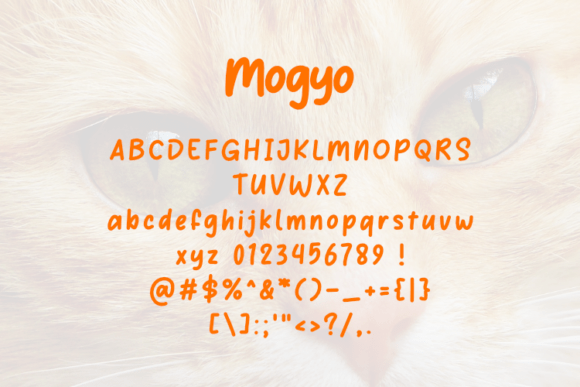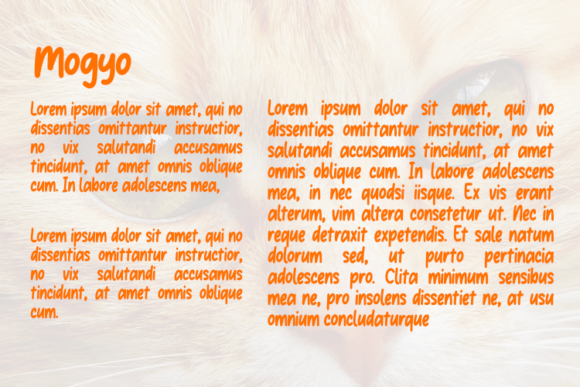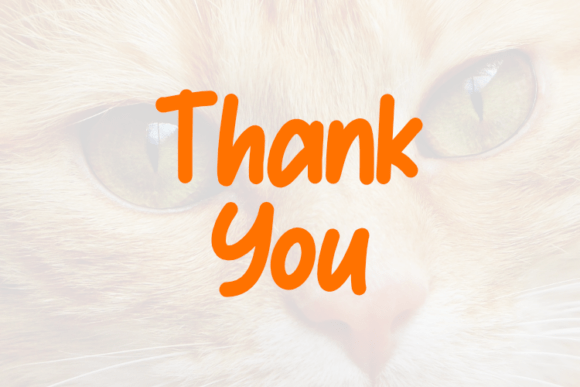
Introduction to Mogyo Font
Presenting Mogyo – a unique font meticulously crafted to bring a new visual dimension to your clothing and product designs.
Quintessentially versatile, it seamlessly adapts to any design context and is compatible with all software Furnished in both OTF and TTF file formats, Mogyo distinctly shines in every design execution, making it universally suited for all aesthetic ventures.
Mogyo Font offers exceptional quality and versatility, making it a valuable addition to your design toolkit. Whether you’re creating for personal projects or commercial use, Mogyo Font delivers professional results.